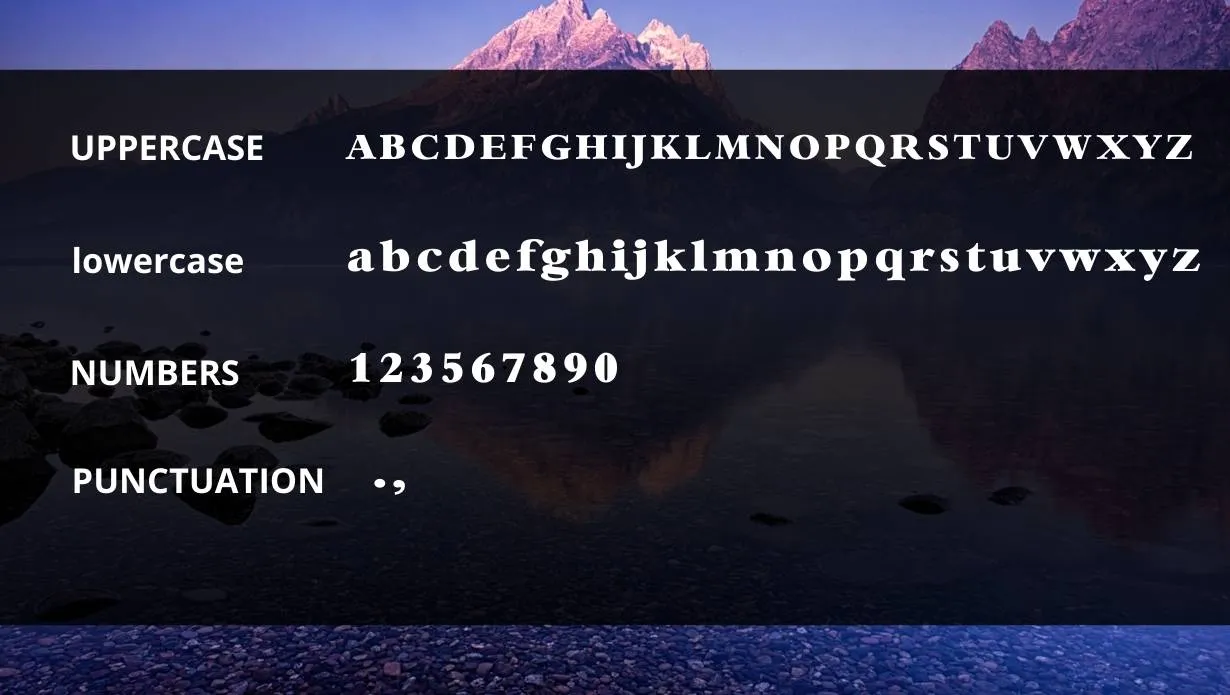
Bambi Font is a font created in 2006 by David Kerkhoff. This Font is an elegant serif typeface with a touch of the display. It is named after the main character in the Disney film, Bambi. The font comes in two styles, regular and italic.
Bambi Typeface is a great choice for logos, headlines, invitations, and other design projects that require a touch of elegance.
View of Bambi Font
Bambi Font Info
| Name | Bambi Font |
| Designer | David Kerkhoff |
| Style | Serif |
- Bambi Medium
- Bambi Heavy
- Bambi Ultra
- Bambi Italic